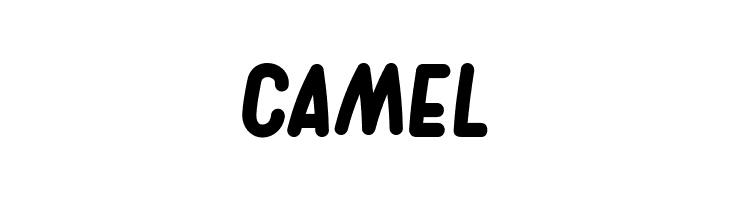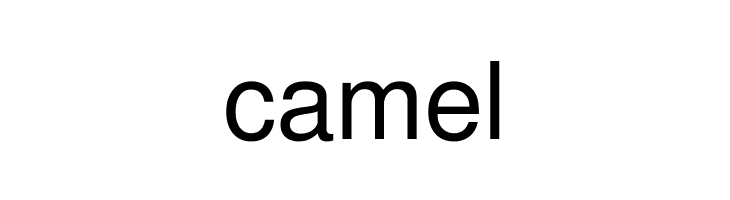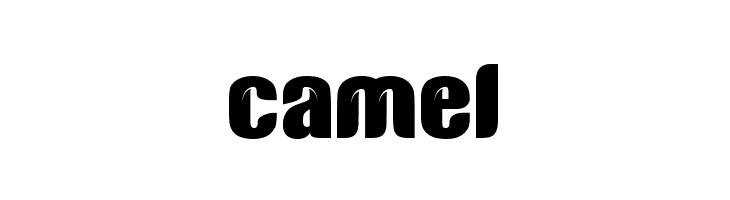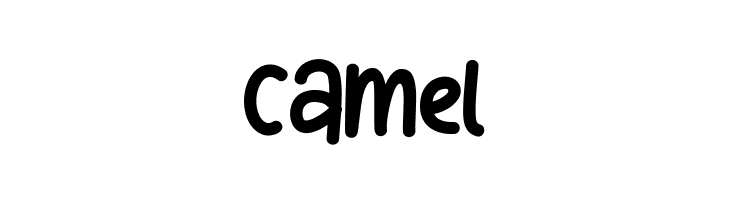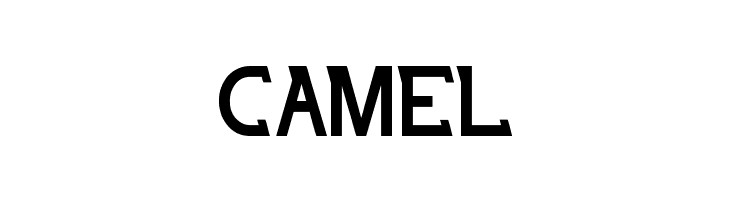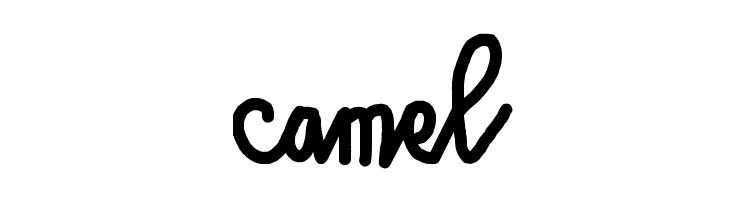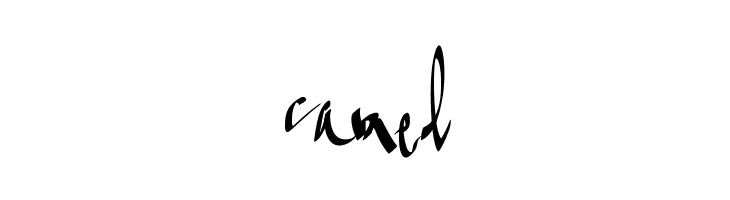
A playful, hand-drawn script font with bold, fluid strokes.
A bold, rounded font with a strong, modern presence.
A clean, modern sans-serif font with consistent stroke width and balanced spacing.
An elegant and whimsical script font with flowing, interconnected letterforms and ornate flourishes.
An artistic, cursive script font with flowing, decorative elements.
A playful, rounded font with bold, smooth curves and a casual, handwritten feel.
A bold, geometric font with a modern and impactful design.
A playful, bold font with rounded edges and a dynamic slant.